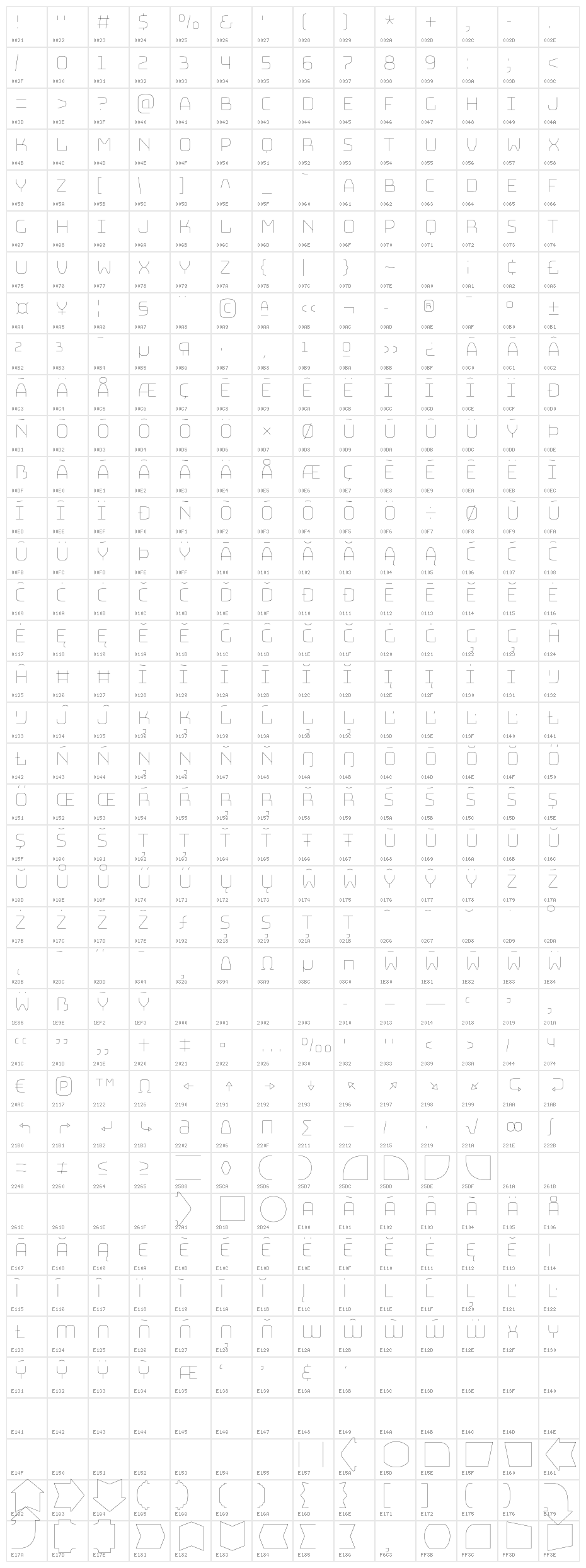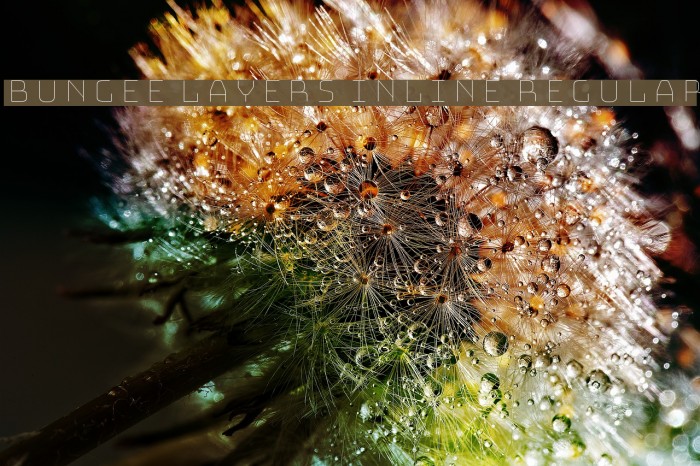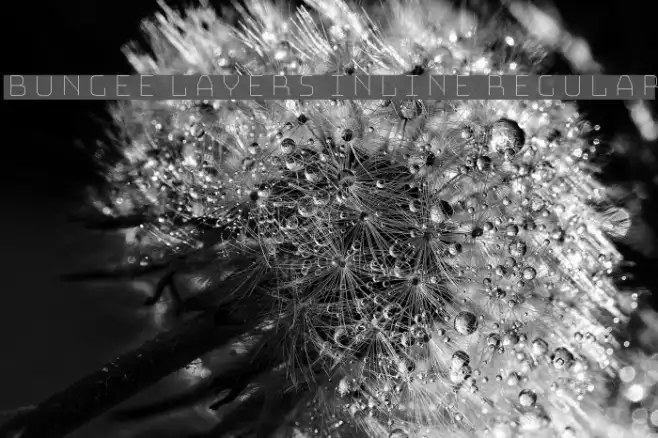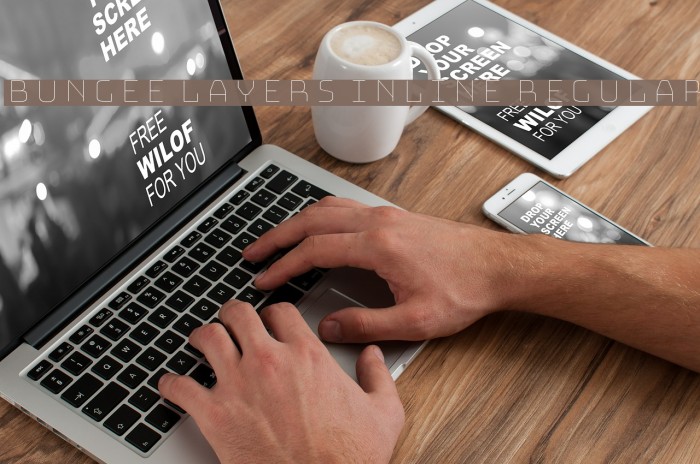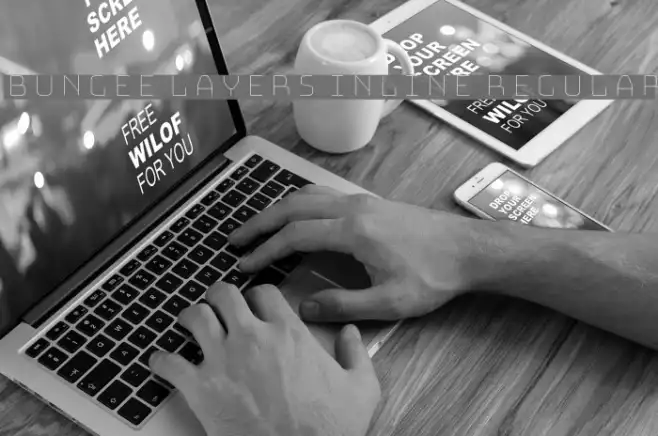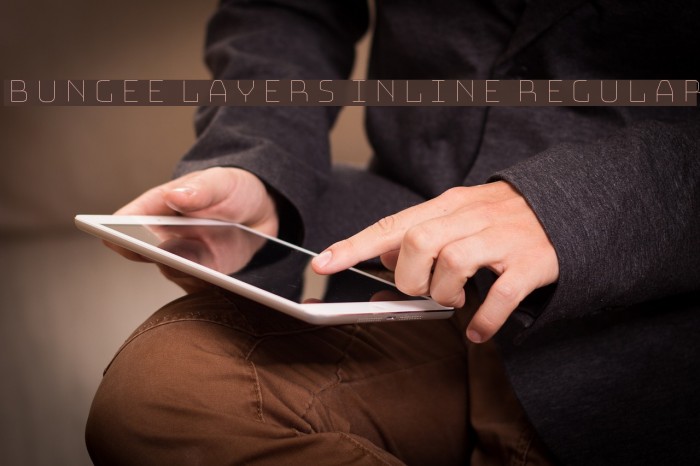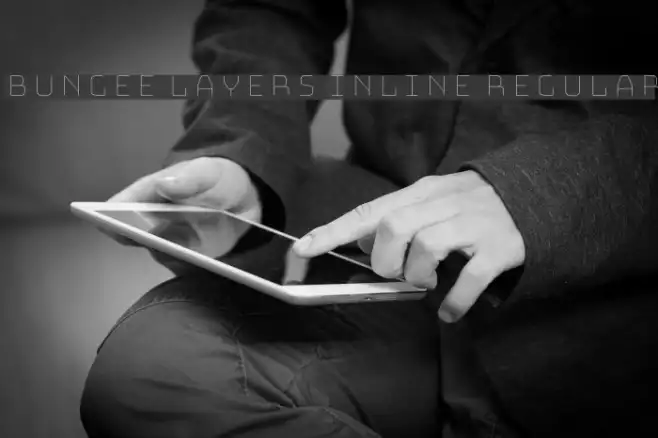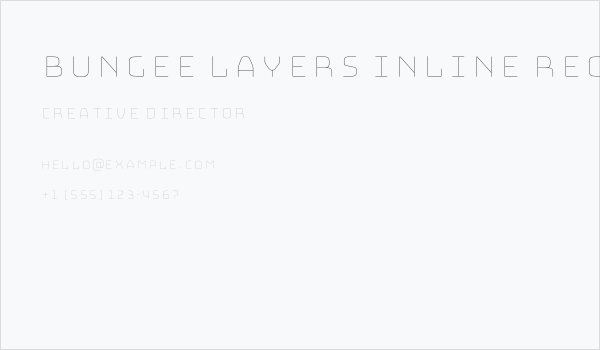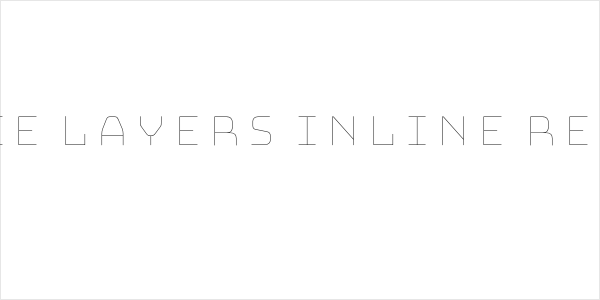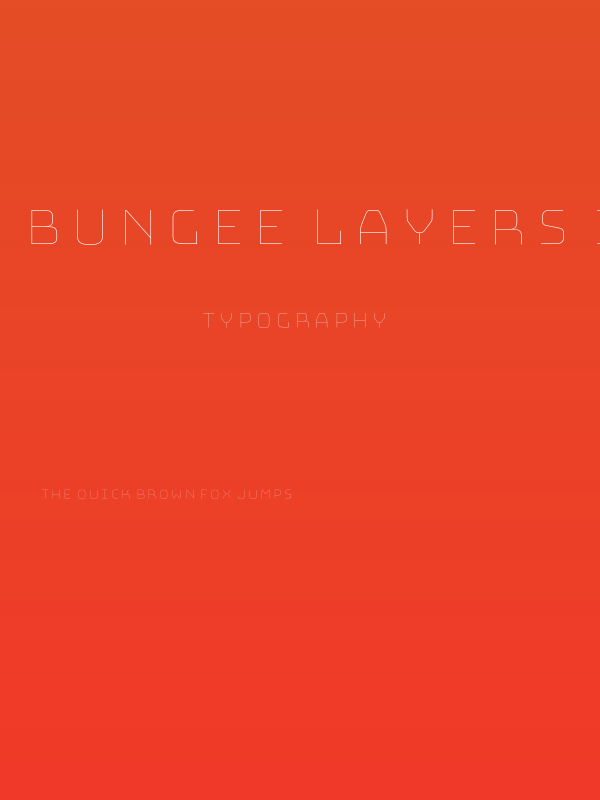
Bungee Layers Inline Regular Font
Bungee Layers Inline Regular Description
This font features a unique inline design that gives it a modern and geometric appearance. The characters are constructed with clean, straight lines and sharp angles, creating a sense of precision and clarity. The uppercase and lowercase letters maintain a consistent height, contributing to a uniform and structured look. The numerals and special characters follow the same design principles, ensuring cohesion across all elements. This font's minimalist style makes it versatile for various design applications, offering a contemporary aesthetic that stands out.
| Proposed Projects | Ideal for branding, signage, posters, and digital media where a modern and distinctive look is desired. |